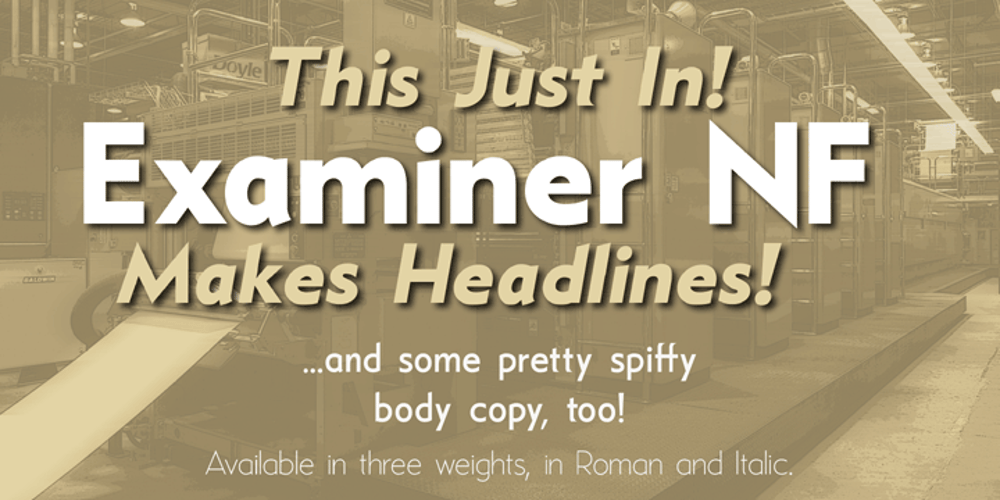
Examiner NF Font Family was designed by William Addison Dwiggins, Nick Curtis and published by Nick’s Fonts. Examiner NF contains 6 styles and family package options. This workmanlike typeface is based on the Metro series, designed by William Addison Dwiggins in the 1930s for the Mergenthaler Linotype Company. Its clean lines and balanced color make it suitable for text and headline work alike. Available in three weights, plus italics. All versions of this font contain the complete Unicode Latin A character complement, with support for the Afrikaans, Albanian, Basque, Bosnian, Breton, Catalan, Croatian, Czech, Danish, Dutch, English, Esperanto, Estonian, Faroese, Fijian, Finnish, Flemish, French, Frisian, German, Greenlandic, Hawaiian, Hungarian, Icelandic, Indonesian, Irish, Italian, Latin, Latvian, Lithuanian, Malay, Maltese, Maori, Moldavan, Norwegian, Polish, Portuguese, Provençal, Rhaeto-Romanic, Romanian, Romany, Sámi, Samoan, Scottish Gaelic, Serbian, Slovak, Slovenian, Spanish, Swahili, Swedish, Tagalog, Turkish and Welsh languages, as well as discretionary ligatures and extended fractions.